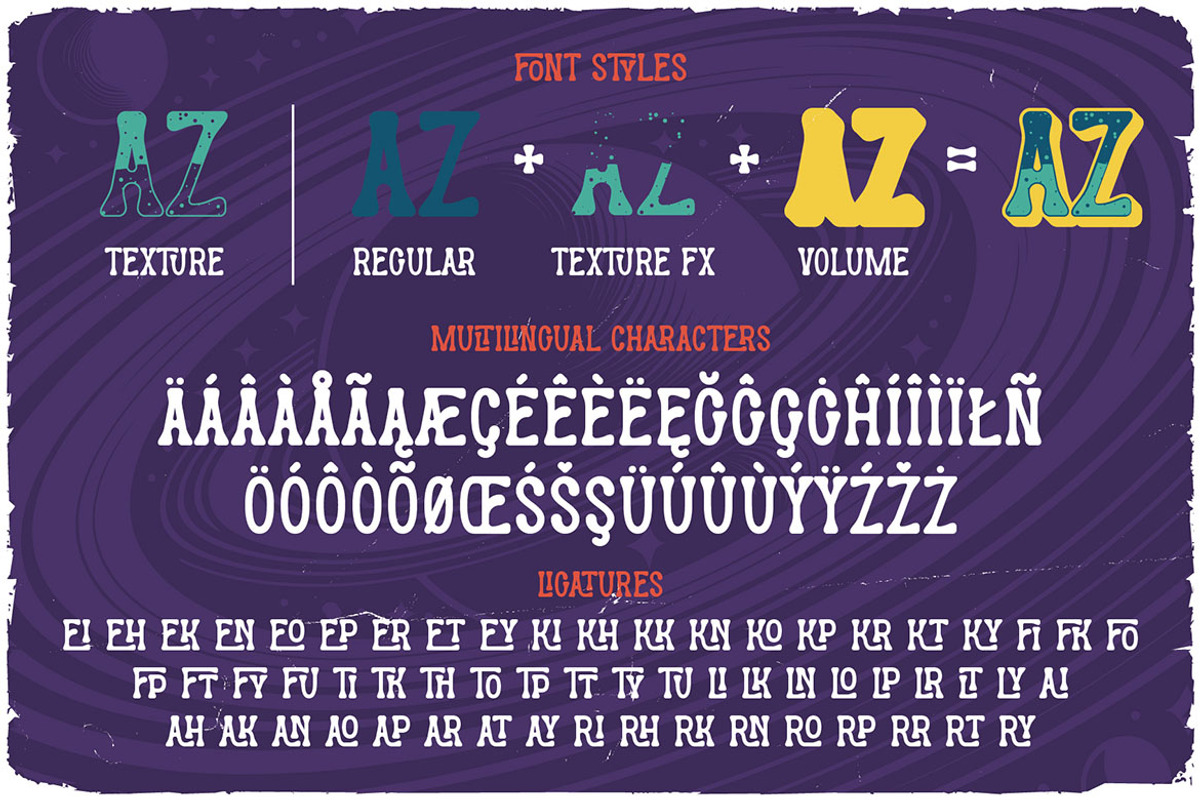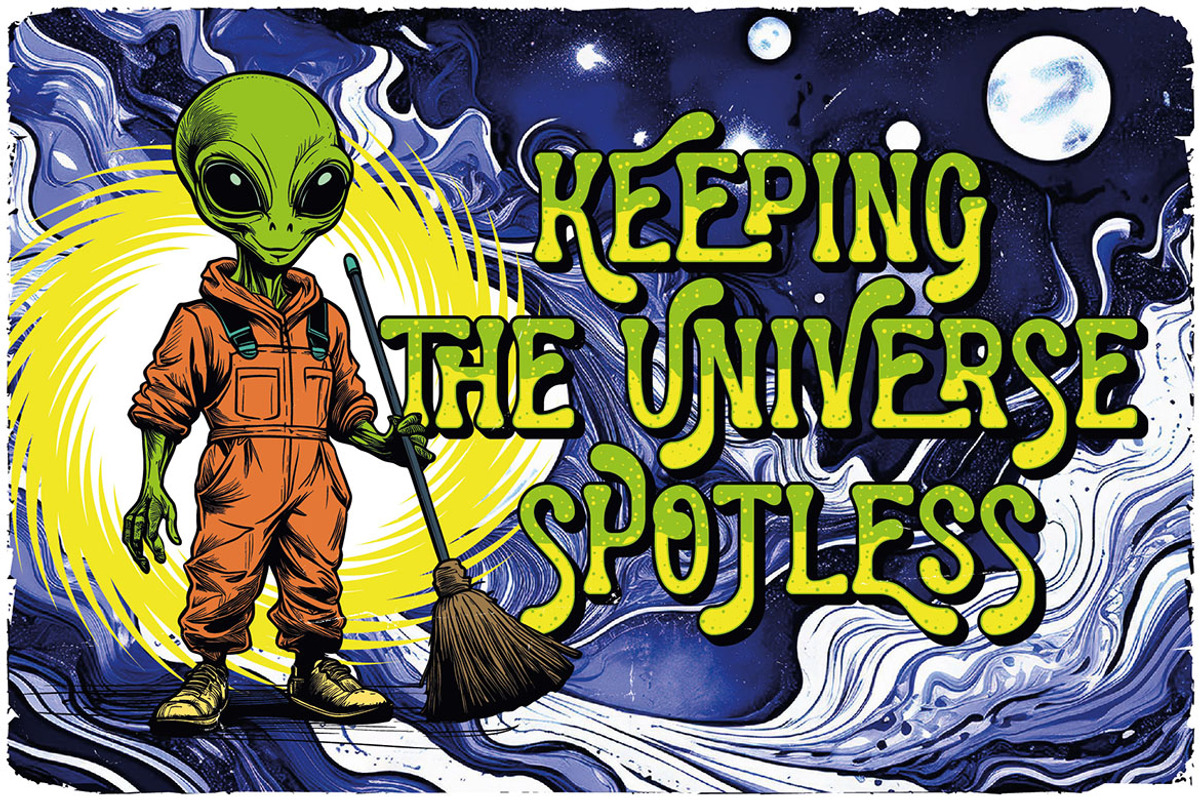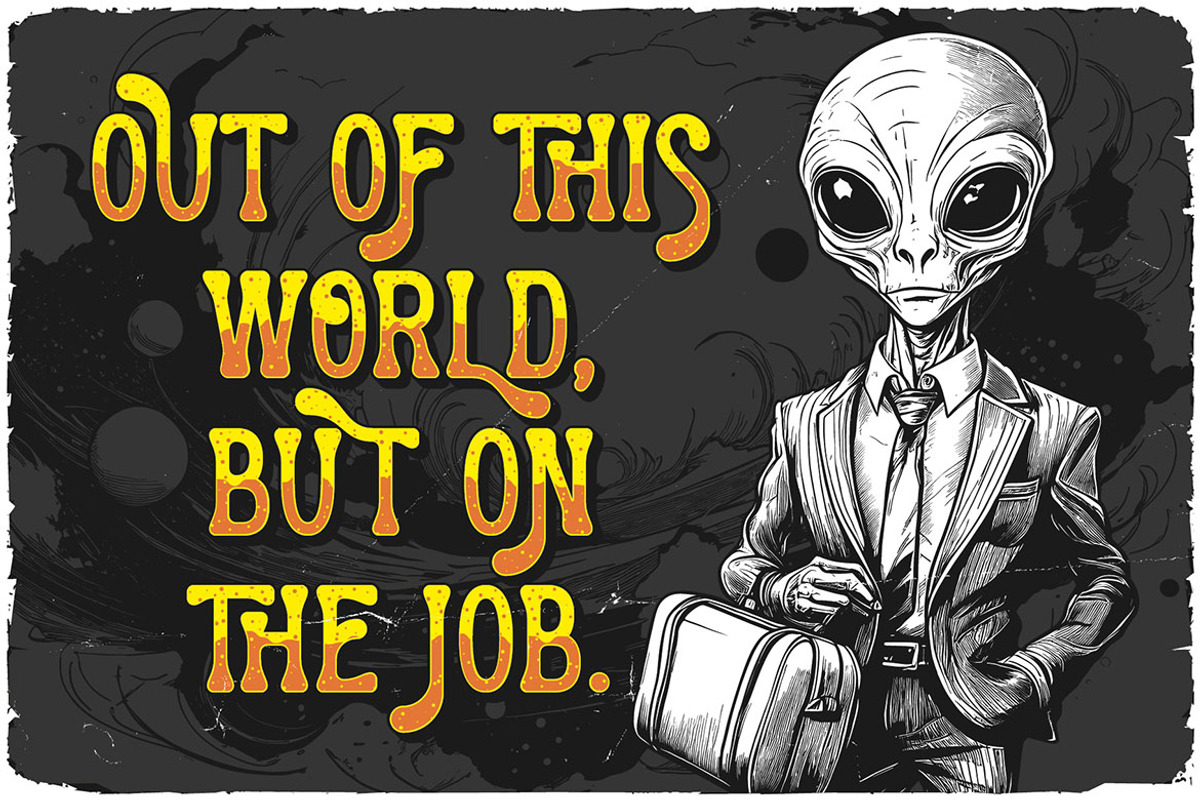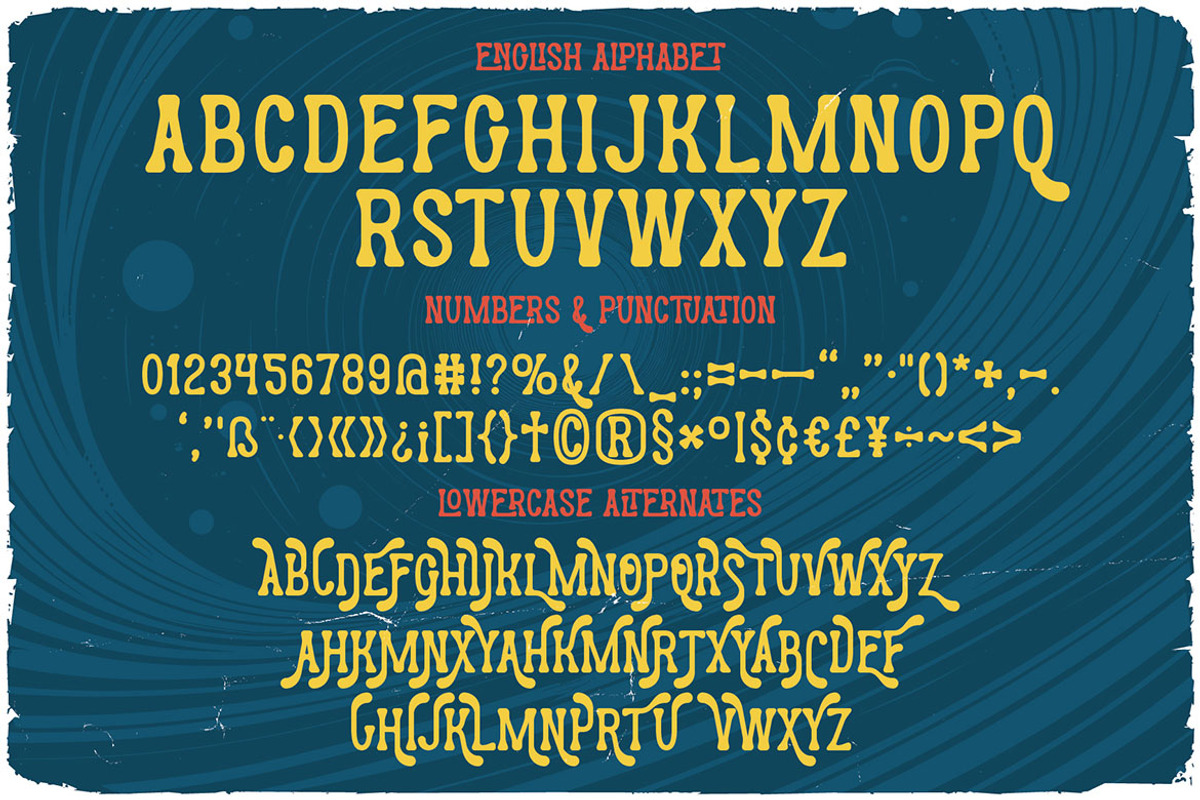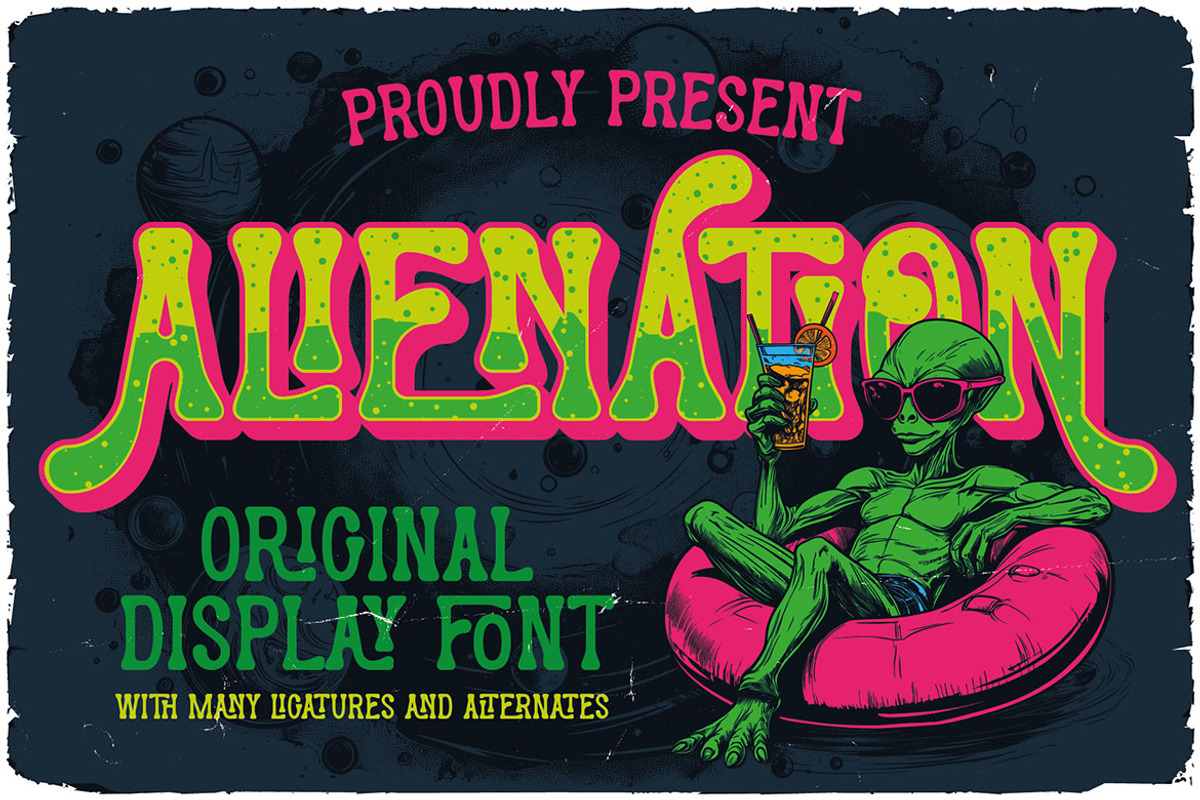
Alienation
Unique, funny, cool, rounded, playful, retro & layered label semi-serif font. Comes with multilingual support & lot of ligatures, alternates + 4 layered font versions - great for your new logo, monogram or branding project.
- 4 font versions - regular & texture & texture effect & volume (you can create layered font effects)
- Multilingual support, alternates & lot of ligatures
- Great for your new logo, monogram or branding project